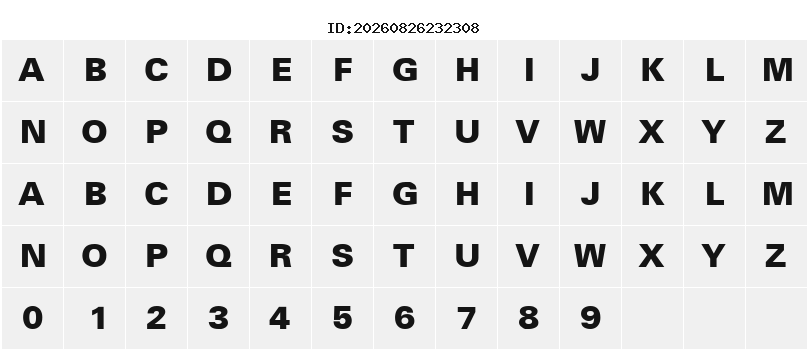
.VnBlackH Preview
• Font Name: .VnBlackH
• Full Font Name: .VnBlackH
About .VnBlackH.ttf
.VnBlackH.ttf is a modern, elegant sans-serif font designed for ultimate readability and visual harmony. Perfect for branding, headlines, web design, and print materials.